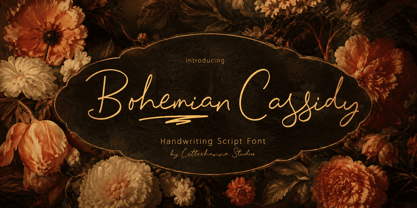
Bohemian Cassidy
by Letterhanna Studio
The Bohemian Cassidy Font Family was designed by Rinaldo Hasibuan and published by Letterhanna Studio. Bohemian Cassidy contains 1 styles.
Bohemian Cassidy is a lovely handwriting script font. It's perfect for signatures, logo type, weddings, posters, brochure or any display use.
Bohemian Cassidy is perfect to get a more charismatic impression or give a unique touch to your projects and branding, greeting cards, wedding, banner, name card, lettering, fonts pairing, etc.
Designers: Rinaldo Hasibuan
Publisher: Letterhanna Studio
Foundry: Letterhanna Studio
Design Owner: Letterhanna Studio